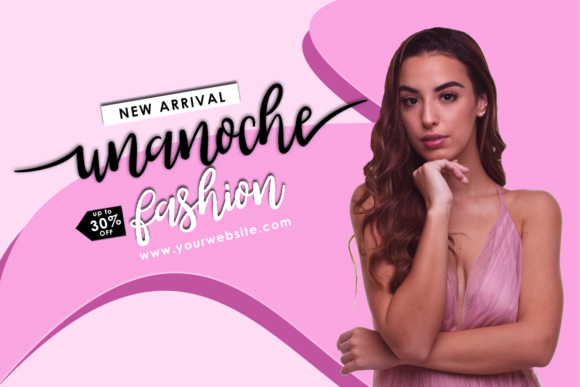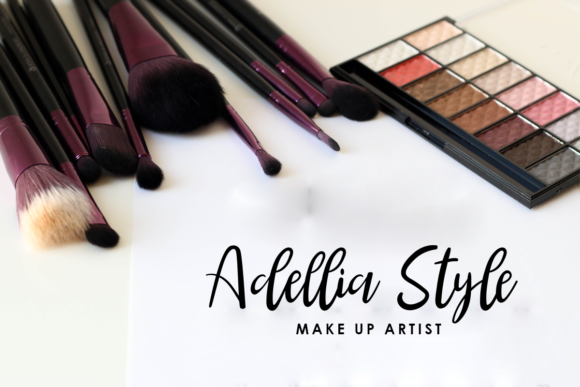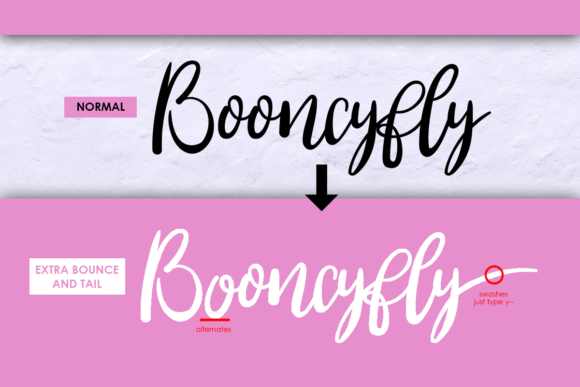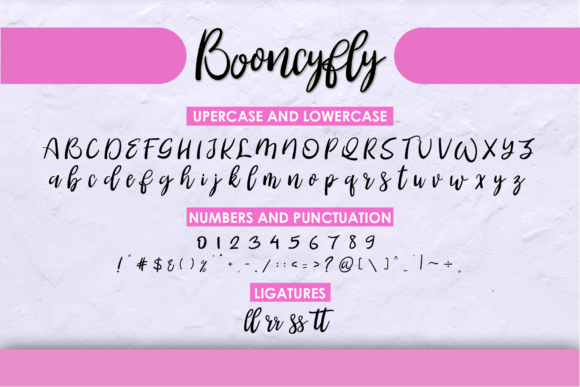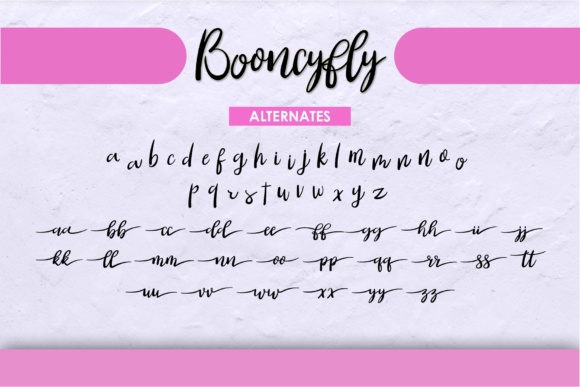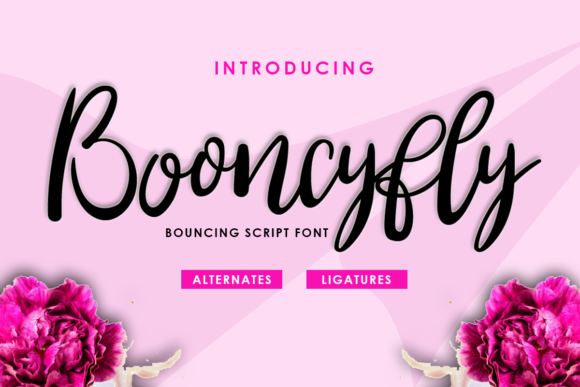
Introducing Booncyfly Font: Elevate Your Designs with Elegance and Flair
In the world of typography, a font can make or break a design. It’s the perfect blend of style, elegance, and personality that can elevate a project from ordinary to extraordinary. If you’re a designer, crafter, or simply someone who appreciates the art of beautiful typography, you’re in for a treat. Say hello to Booncyfly Font, a delicate, elegant, and flowing handwritten font that’s about to take your creative endeavors to new heights.
The Beauty of Booncyfly Font
Booncyfly Font is a masterpiece of typographic design, boasting beautiful and well-balanced characters that effortlessly match a wide pool of designs. Its varying baseline, smooth lines, gorgeous glyphs, and stunning alternates come together to create a truly unique and captivating visual experience. Whether you’re working on a branding project, crafting a stunning invitation, or simply looking to add a touch of elegance to your digital content, Booncyfly Font is the perfect choice.
What Makes Booncyfly Font So Special?
So, what sets Booncyfly Font apart from other fonts in the market? Here are just a few reasons why this font is a must-have for designers and crafters:
- Delicate and Elegant: Booncyfly Font exudes sophistication and refinement, making it perfect for projects that require a touch of luxury and glamour.
- Flowing Handwritten Style: The font’s flowing handwritten style adds a personal and organic touch to any design, making it perfect for projects that require a human touch.
- Well-Balanced Characters: The font’s characters are carefully crafted to ensure perfect balance and harmony, making it easy to read and visually appealing.
- Varying Baseline: The font’s varying baseline adds a touch of whimsy and playfulness, making it perfect for projects that require a bit of personality.
- Stunning Alternates: The font’s stunning alternates provide endless possibilities for creative expression, allowing you to experiment with different styles and moods.
How to Use Booncyfly Font in Your Designs
Booncyfly Font is incredibly versatile and can be used in a wide range of design projects, including:
- Branding and Logo Design: Use Booncyfly Font to create a stunning logo that exudes elegance and sophistication.
- Invitations and Stationery: Add a touch of luxury to your invitations and stationery with Booncyfly Font.
- Digital Content: Use Booncyfly Font to elevate your digital content, including blog posts, social media graphics, and more.
- Crafting and Scrapbooking: Booncyfly Font is perfect for crafters and scrapbookers who want to add a touch of elegance to their projects.
In conclusion, Booncyfly Font is a true gem in the world of typography. Its delicate, elegant, and flowing handwritten style makes it perfect for designers and crafters who want to add a touch of sophistication and luxury to their projects. With its well-balanced characters, varying baseline, smooth lines, gorgeous glyphs, and stunning alternates, Booncyfly Font is sure to elevate your creative endeavors to new heights. So why wait? Add Booncyfly Font to your collection today and watch your designs come alive!
- Delicate and elegant handwritten font
- Flowing style with varying baseline
- Smooth lines and gorgeous glyphs
- Stunning alternates for creative expression
- Perfect for branding, invitations, digital content, crafting, and scrapbooking